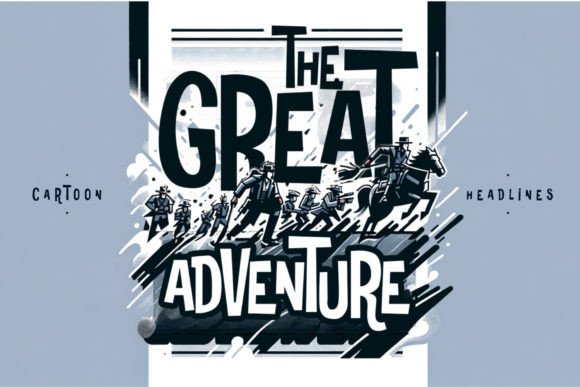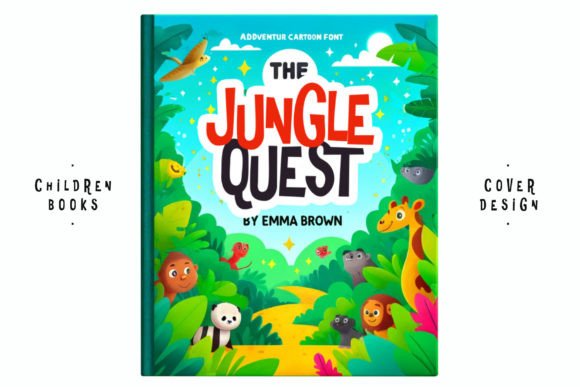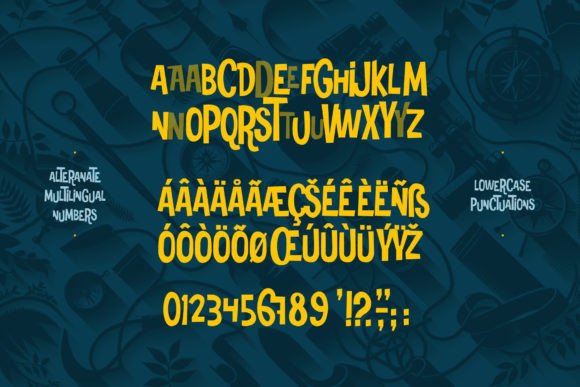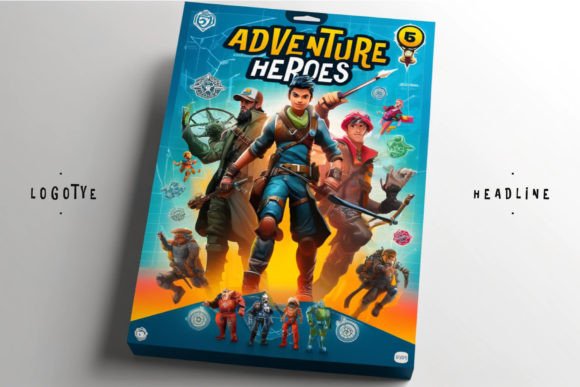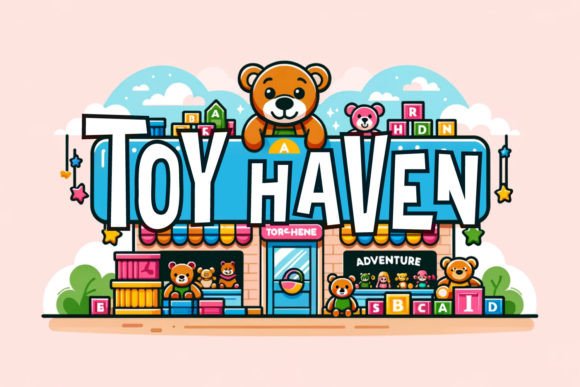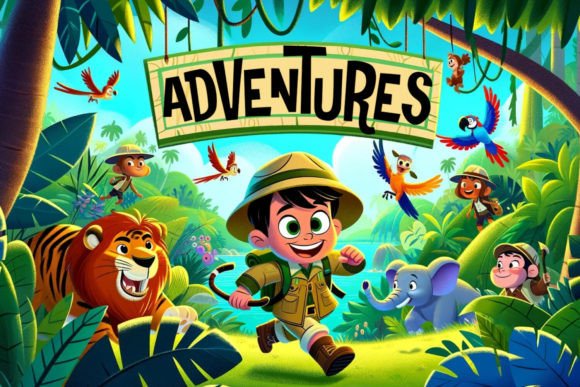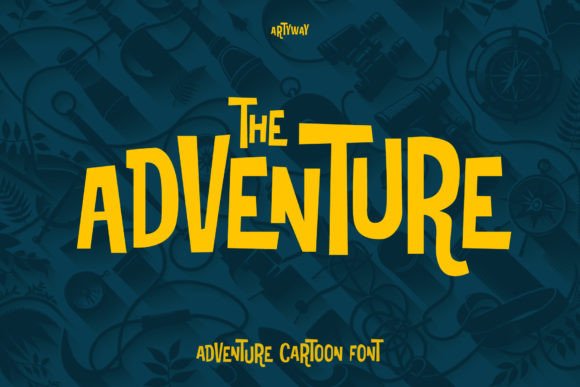
Discover the Ultimate Typeface for Fun and Playful Designs: Adventure Font with Adventure Cartoon
Are you a designer or crafter looking for a typeface that can add a dash of excitement and playfulness to your projects? Look no further than Adventure Cartoon, a bold and funny font that’s perfect for creating engaging and entertaining designs. In this article, we’ll explore the features and benefits of Adventure Cartoon, and why it’s the ideal choice for children’s content, playful logos, and dynamic posters.
The Perfect Font for Playful Designs
Adventure Cartoon is designed to bring a sense of adventure and fun to your designs. Its bold, funny characters are crafted with a unique personality, ensuring your text stands out with a distinctive charm. Whether you’re creating content for kids, designing a playful logo, or crafting a dynamic poster, Adventure Cartoon is the perfect typeface to add a touch of excitement and energy to your project.
Key Features of Adventure Cartoon
- Bold and Funny Characters: Each letter in Adventure Cartoon is designed to be bold and funny, making it perfect for creating engaging and entertaining designs.
- Unique Personality: Every character in Adventure Cartoon has a unique personality, ensuring your text stands out with a distinctive charm.
- Multi-Language Support: Adventure Cartoon supports multiple languages, making it a versatile font for a wide range of uses.
- Special Characters: The font includes special characters, adding an extra layer of creativity to your designs.
Why Choose Adventure Cartoon?
So why choose Adventure Cartoon for your design projects? Here are just a few reasons:
- Engaging and Entertaining: Adventure Cartoon is perfect for creating engaging and entertaining designs that capture the attention of your audience.
- Ideal for Children’s Content: The font’s playful and fun design makes it an ideal choice for children’s content, such as books, games, and educational materials.
- Playful Logos: Adventure Cartoon is perfect for creating playful logos that add a touch of personality to your brand.
- Dynamic Posters: The font’s bold and funny characters make it perfect for creating dynamic posters that grab attention.
Tips for Using Adventure Cartoon
Here are a few tips for using Adventure Cartoon in your design projects:
- Use it for Headings: Adventure Cartoon is perfect for headings and titles, adding a touch of excitement and energy to your designs.
- Experiment with Colors: The font’s bold and funny characters look great in a variety of colors, so don’t be afraid to experiment and find the perfect color scheme for your design.
- Pair it with Other Fonts: Adventure Cartoon can be paired with other fonts to create a unique and interesting design.
In conclusion, Adventure Cartoon is the perfect typeface for fun and playful designs. Its bold, funny characters and unique personality make it an ideal choice for children’s content, playful logos, and dynamic posters. With its multi-language support and special characters, Adventure Cartoon is a versatile font that’s perfect for a wide range of uses. Add Adventure Cartoon to your font library today and infuse your designs with energy and creativity.